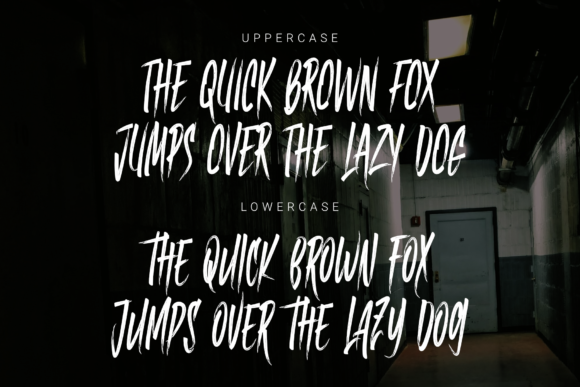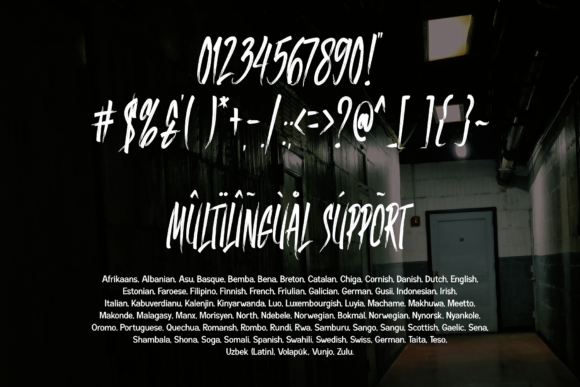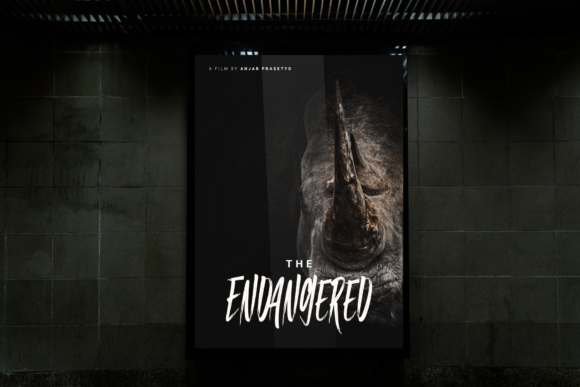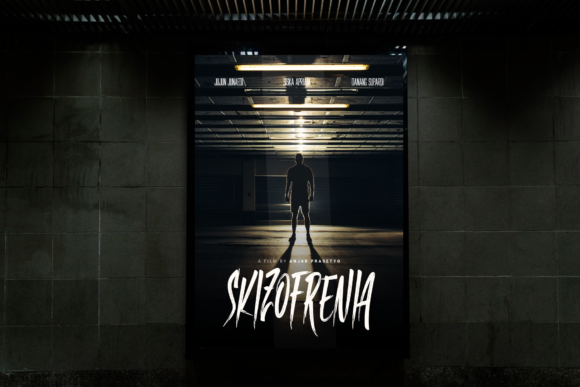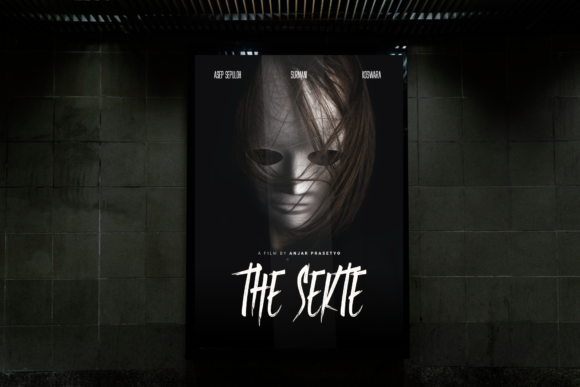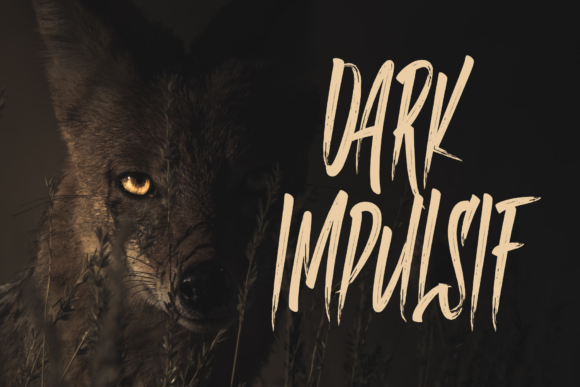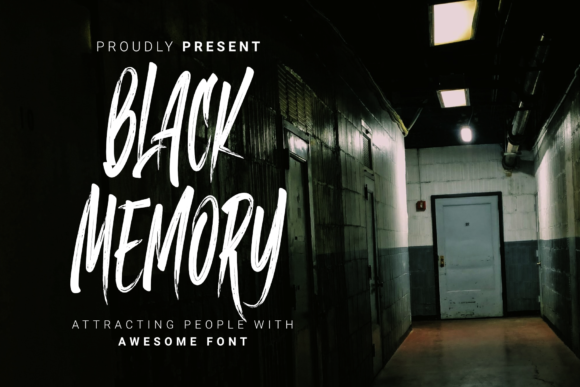
I still remember the frustration of working on a design project, hours spent crafting the perfect layout, only to be held back by one thing: the font. It was for a client’s casual, outdoor-themed campaign, and I needed something that screamed relaxed yet stylish. After hours of scrolling through font libraries, I stumbled upon Black Memory Font. It was love at first sight! ✨
An Honest Review of Black Memory Font
So, what makes Black Memory Font so special? Let’s dive into the good stuff and, of course, a few quirks I’ve noticed.
- 💫 Brushed Effect: The font’s unique brushed effect gives it a one-of-a-kind look that’s perfect for creative projects.
- ✅ Ease of Use: It’s incredibly easy to use, even for those who aren’t super tech-savvy.
- 🌈 Versatility: Black Memory Font works well across various platforms and design applications.
- 👍 Legibility: Despite its stylized look, the font remains highly legible, even at smaller sizes.
While Black Memory Font is fantastic, there are a few things to keep in mind:
- 🤔 Limited Formality: Due to its casual nature, it might not be the best fit for very formal or professional projects.
- ⚠️ Overuse of OpenType Features: If you’re not careful, overusing the OpenType features can make the text look cluttered.
The Story Behind Black Memory Font
While the exact origins of Black Memory Font are a bit fuzzy, it’s clear that it was designed with creativity in mind. The font’s unique brushed effect and relaxed vibe make it perfect for designers looking to add a bit of personality to their work. Whether it’s a hobbyist looking for a cool font for their craft project or a professional designer seeking a fresh look, Black Memory Font is sure to impress.
Q: Is Black Memory Font suitable for professional projects?
A: While Black Memory Font is incredibly stylish and versatile, its casual nature might make it less suitable for very formal or professional projects. However, it can still work well for projects that require a bit of personality.
Q: Does Black Memory Font support OpenType features?
A: Yes, Black Memory Font supports OpenType features, including stylistic alternates and glyphs. This allows you to add an extra layer of creativity to your designs.